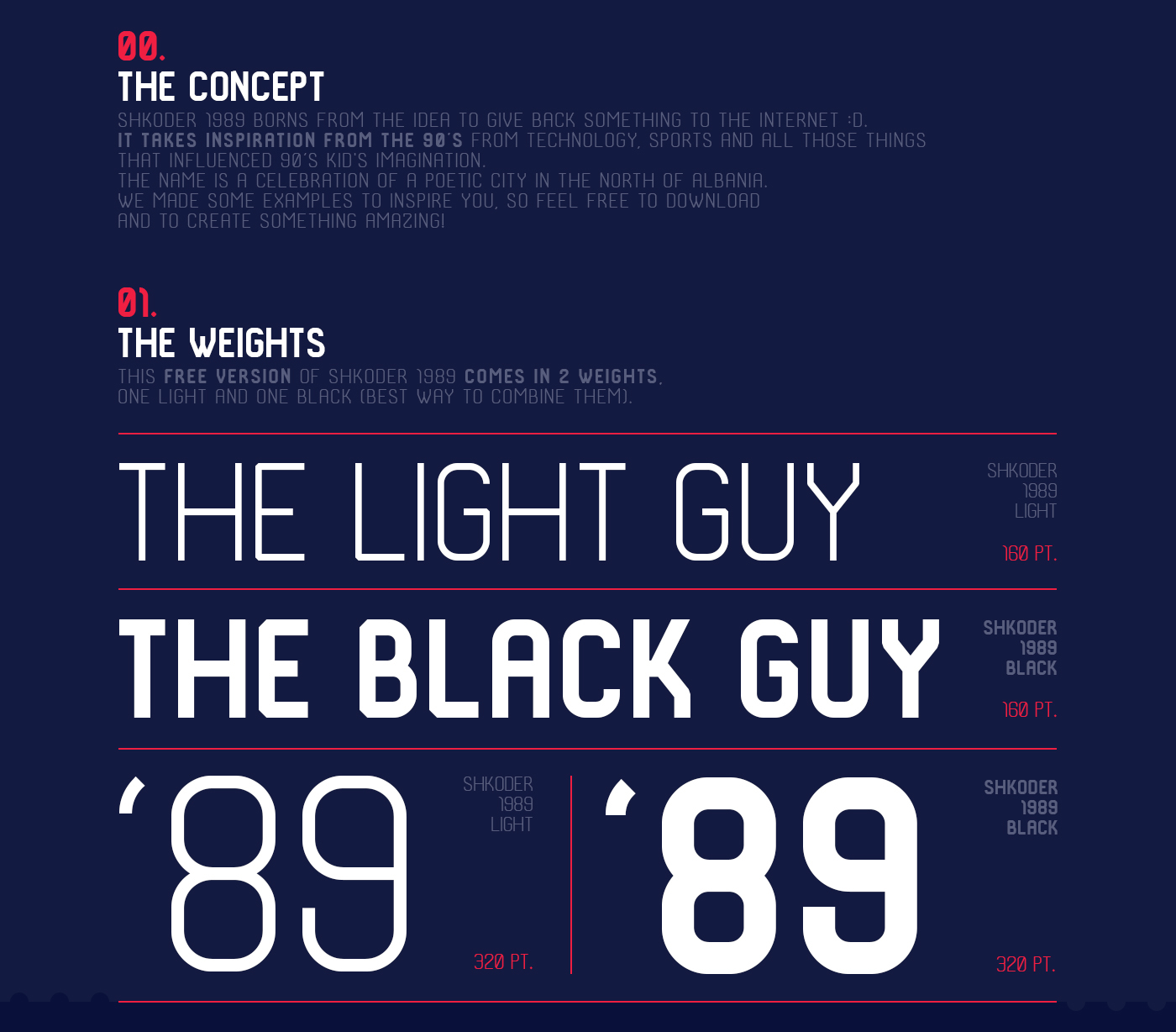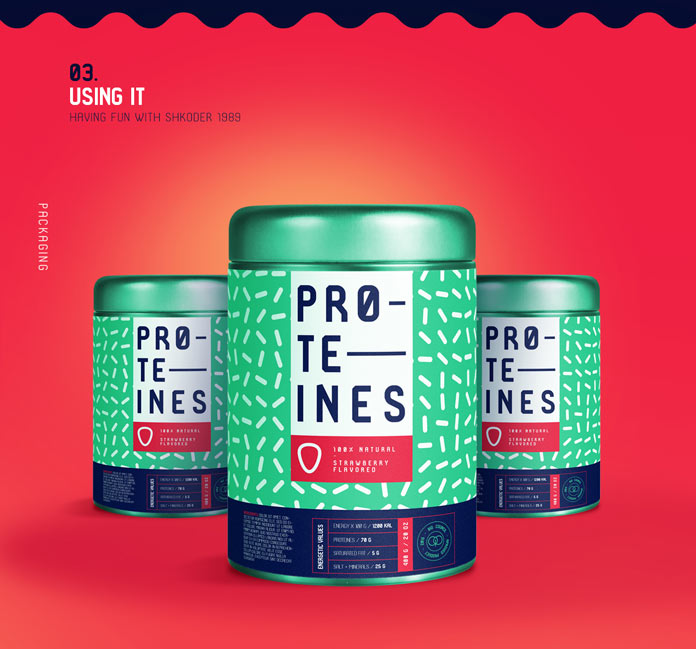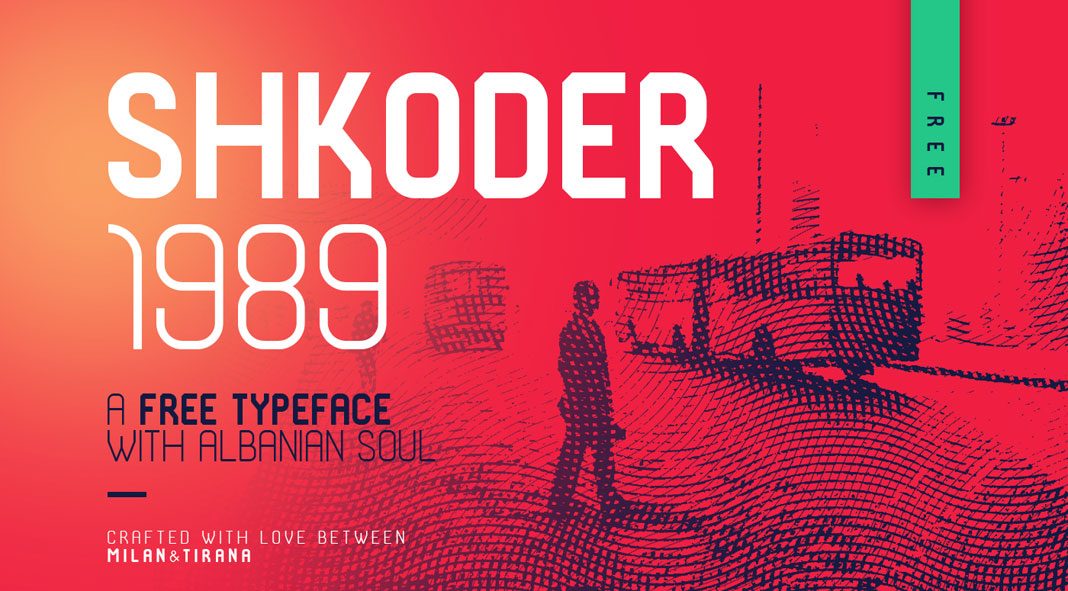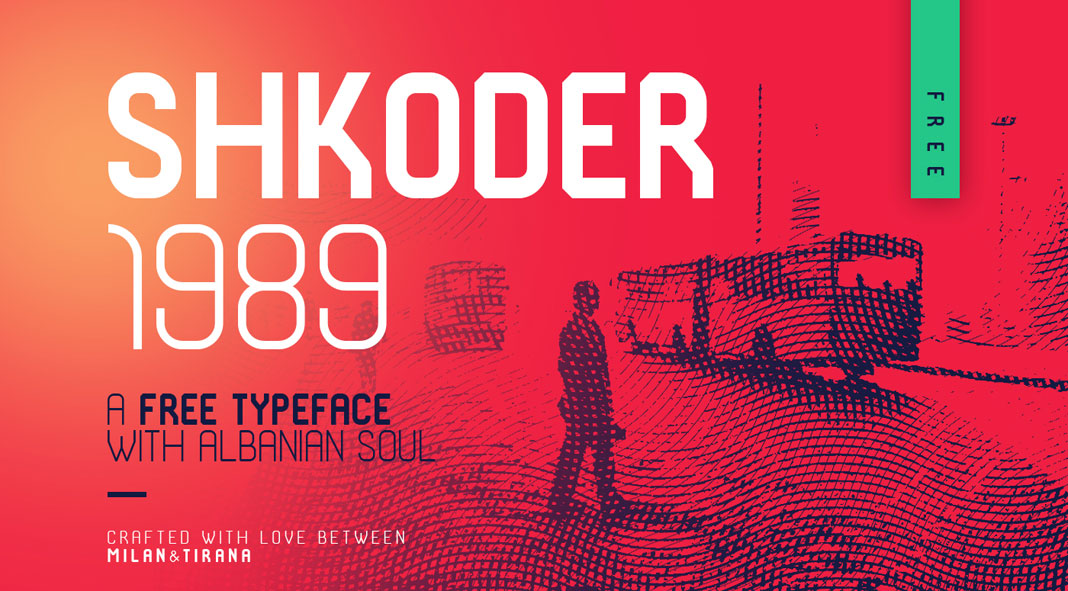
Shkoder 1989, a techy and sporty free font in two weights inspired by the late 1980s and 1990s.
Crafted with love between Milan and Tirana, Julian Hoxhaj and Ana Hoxha have created Shkoder 1989, a techy and sporty free font. With strong influences from typical styles of the late 1980s and 1990s, the typeface works quite well in any kind of print and digital project. This geometric all-caps typeface comes in two weights, a light and black version. Check out more information about the project on Behance.